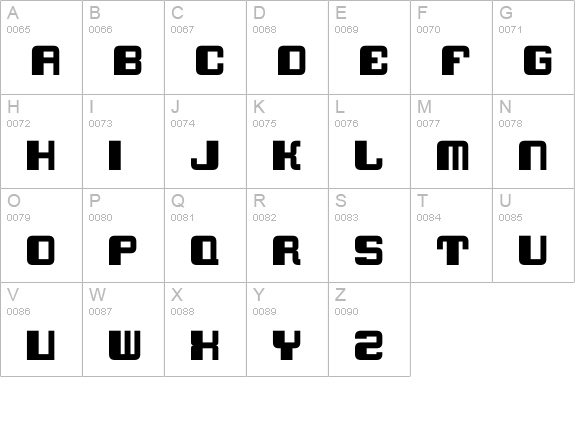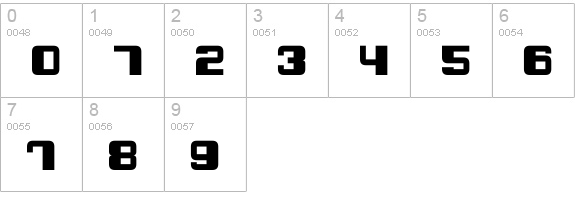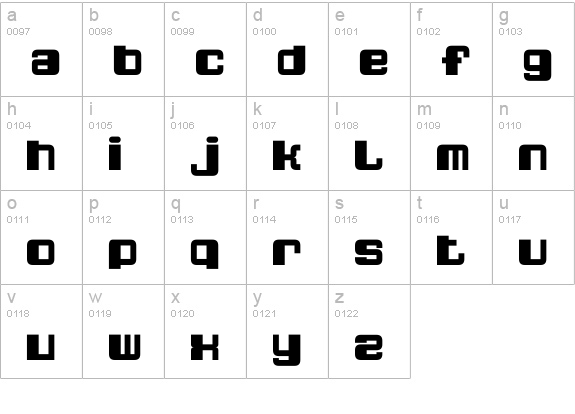
QuatronFat Font Details
Introducing QuatronFat, a captivating and bold font that will elevate your designs to new heights. With its stunning and eye-catching appearance, QuatronFat is the perfect choice for those seeking to make a lasting impression. This unique font features a combination of sleek lines and robust curves, resulting in a dynamic and powerful typeface. Its well-defined characters exude confidence and strength, making it ideal for headlines, logos, and any design project that requires a touch of impact. QuatronFat is not only visually striking, but it also boasts a versatility that suits a wide range of design styles. Whether you're aiming for a modern and edgy look or a classic and timeless feel, this font has you covered. What's even better is that QuatronFat is completely free to download at FontsMarket.com. Yes, you read that right – this exceptional font is available at no cost, allowing you to enhance your designs without breaking the bank. FontsMarket.com offers a vast collection of fonts, and QuatronFat is just one of the many gems waiting to be discovered. Don't miss out on the opportunity to elevate your creativity with QuatronFat. Download it today from FontsMarket.com and unlock a world of design possibilities.